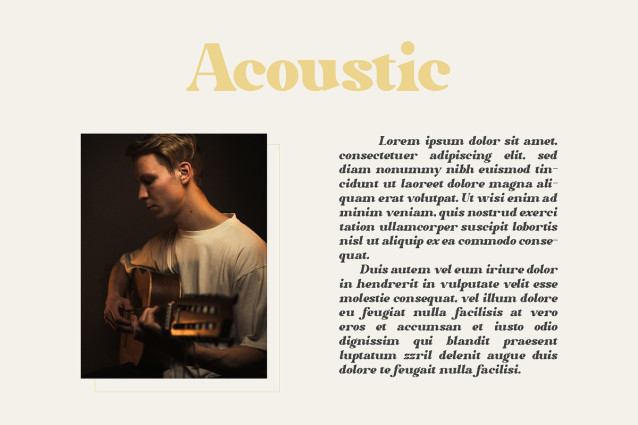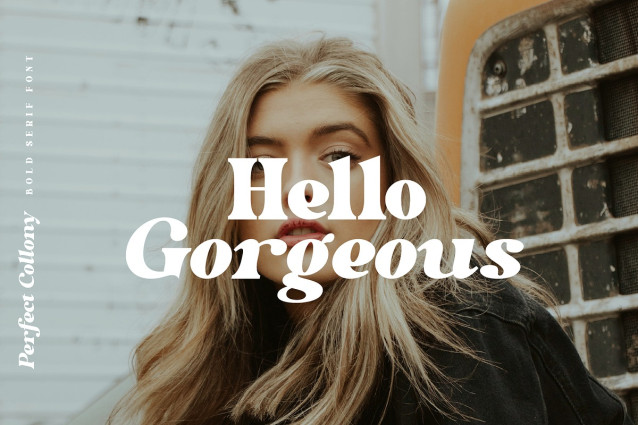
Perfect Colony Font
Perfect Colony Font is bold and classic serif with elegant curves. This font is perfect for branding, logo design, header text, poster and many other.